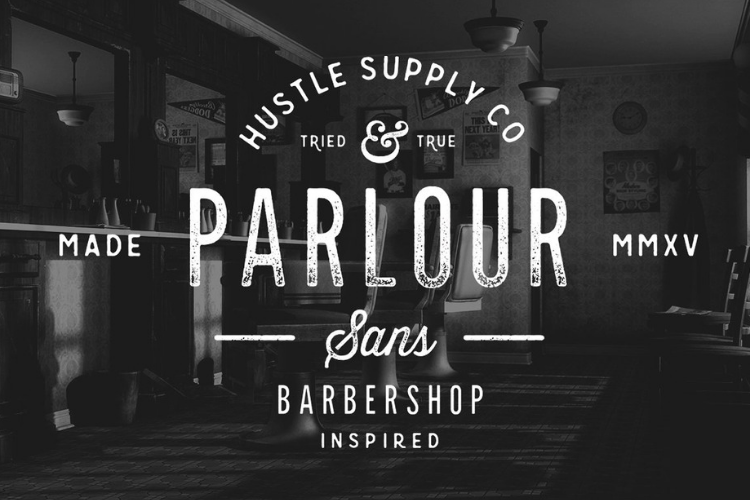
Parlour Sans
If you liked Parlour, you'll love Parlour Sans! "Parlour Sans"is a display typeface inspired by Movember, Menswear Brands, Tattoo Shops & Barbers. This versatile font is perfect for your next project. This font comes with the texture already applied in lowercase and with no degradation in Uppercase. Created with the software, "Glyphs", this font comes in OTF format with a full alphabet, numbers, punctuation & other extra glyphs.
By Hustle Supply Co.